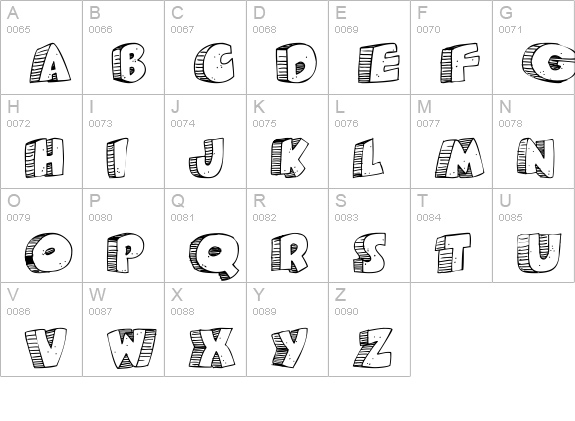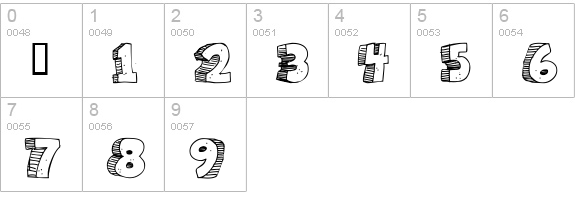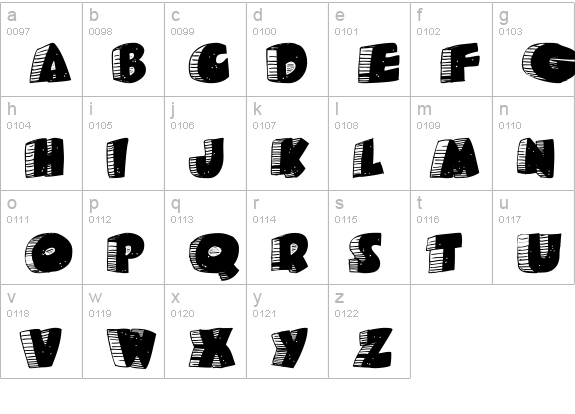
Caveman Font Details
Introducing Caveman font, a primitive and rugged typeface that takes you back to the dawn of civilization. With its bold and untamed letterforms, this font encapsulates the raw essence of our ancestors, evoking a sense of adventure and ancient wisdom. Caveman font is a versatile display typeface that pays homage to the early days of communication. Its rough and uneven strokes reflect the untamed spirit of our early predecessors, offering a unique and distinctive look to any design project. This font is perfect for adding an authentic touch to your artwork, whether it's for a historical documentary, an adventurous video game, or even a bold logo for a rock band. Its strong and bold letterforms command attention and make a powerful statement. And the best part? Caveman font is absolutely free! Yes, you read that right. This captivating typeface is freely available to download at FontsMarket.com. We believe that creativity should not be limited by budget constraints, so we offer this font as a gift to designers, artists, and anyone in need of a powerful and expressive typeface. So, why wait? Unleash your creativity and transport your audience to the ancient world with Caveman font. Download it now from FontsMarket.com and embark on a journey through time, where the past meets the present in a mesmerizing blend of typography and imagination.